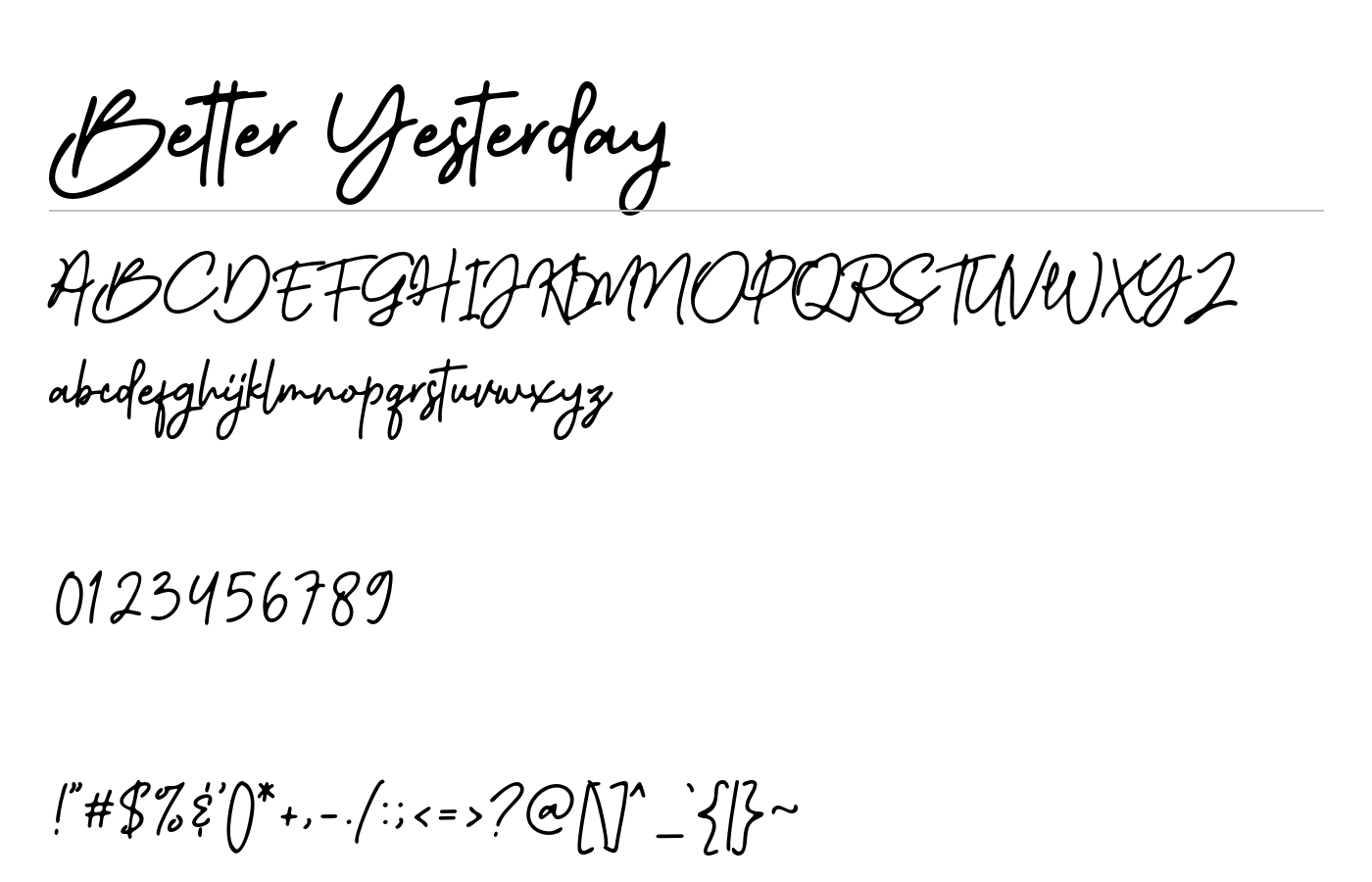
Better Yesterday is a casual, hand-drawn script font with a lively and personal feel. Its smooth, flowing strokes and varied line thicknesses give it an expressive, approachable character perfect for creative branding, invitations, and informal designs that seek warmth and personality. This font works especially well in projects where a natural, handwritten touch adds charm and authenticity.
Better Yesterday Font
About Better Yesterday Font